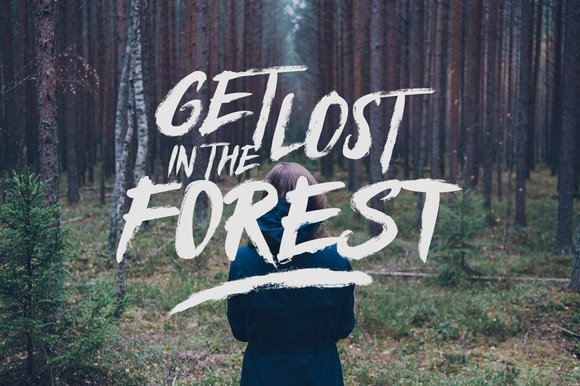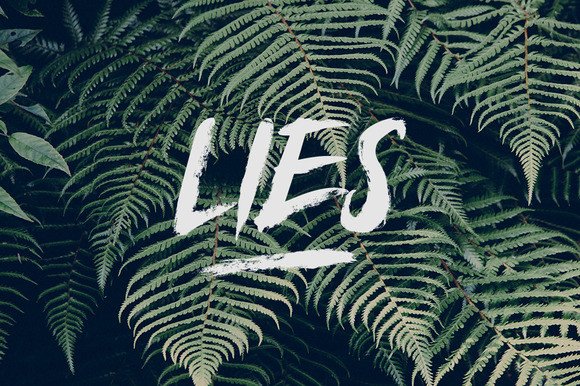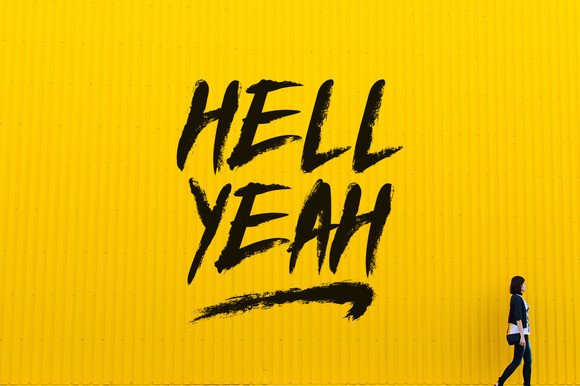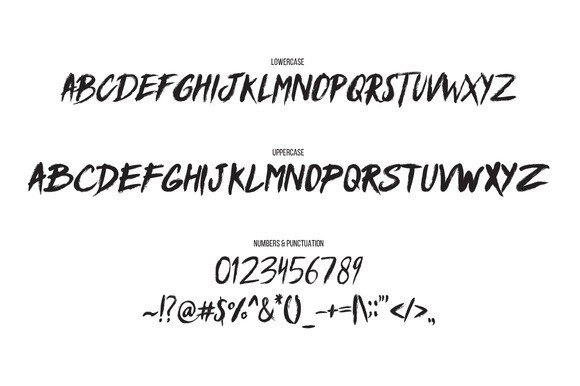
The Begundal Font: A Dry Brush Typeface to Elevate Your Designs
I’ll never forget the time I was working on a project for a client who wanted a logo that looked like it was painted on a canvas. I spent hours scouring the internet for the perfect font, but nothing seemed quite right. That was until I stumbled upon the Begundal font. With its unique dry brush style, it added a touch of personality to my design that I just couldn’t replicate with other fonts.
As I explored the Begundal font further, I realized that it was more than just a one-trick pony. Its versatility and range made it perfect for a wide variety of design projects, from headings and logos to invitations and t-shirt designs.
An Honest Review of Begundal Font
What I Love About Begundal Font
- ✨ Unique dry brush style that adds a touch of personality to any design
- ✅ Highly versatile and can be used for a wide range of design projects
- ✅ Easy to read, even at smaller font sizes
- ✅ Extensive OpenType features, including glyphs and stylistic alternates
While the Begundal font is an excellent choice for many design projects, there are a few quirks to be aware of. For example:
- ⚠️ Some users have reported issues with kerning, particularly at larger font sizes
- 🤔 The font may not be suitable for body text, as it can be a bit too ornate for long blocks of text
The Story Behind Begundal Font
The Begundal font was designed by a team of typographers who wanted to create a unique, hand-painted font that would add a touch of personality to any design. Inspired by the works of traditional sign painters, the team spent months perfecting the font’s dry brush style and extensive OpenType features.
Q: What is the Begundal font best used for?
A: The Begundal font is best used for designs that need a unique, hand-painted feel, such as headings, logos, invitations, t-shirt designs, and more.
Q: Is the Begundal font easy to read?
A: Yes, the Begundal font is designed to be easy to read, even at smaller font sizes.
Q: Does the Begundal font come with OpenType features?
A: Yes, the Begundal font comes with extensive OpenType features, including glyphs and stylistic alternates.